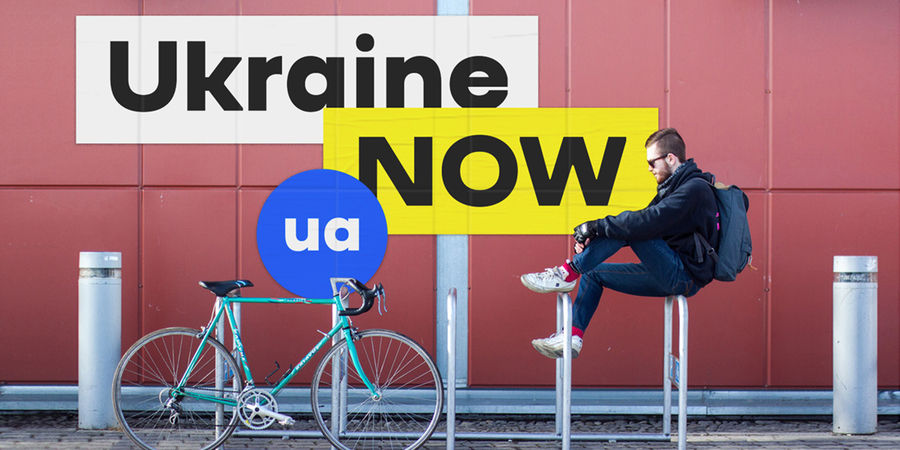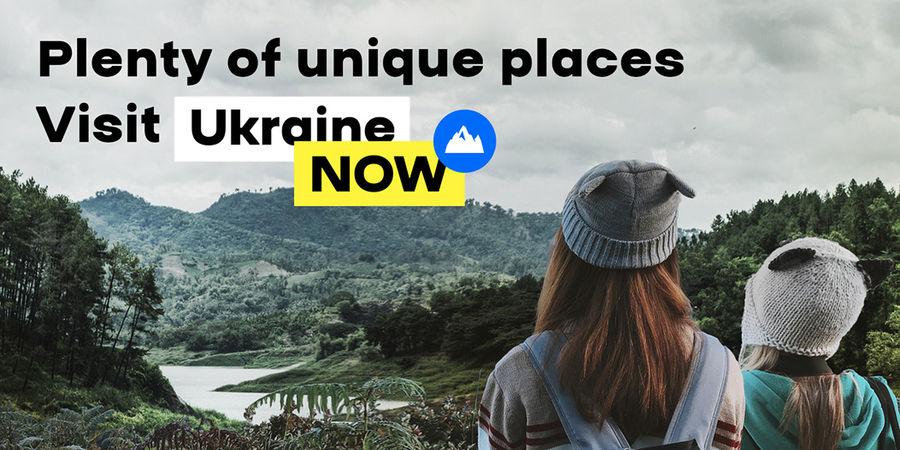
Logo font pair with Mazzard M Regular (1 of 12)About ErmilovErmilov typeface was created specifically for the international brand of Ukraine "Ukraine NOW" – Reddot Design Award 2018 winner. This is a modern massive geometric sans serif in the spirit of constructivism with special skews in the corners of letters. The author decided to devote this font to a famous Kharkiv designer and constructivist artist Vasyl Yermilov. The future use of the font depends on decision to create whole font family with different variants of weight. Now there is only Ermilov Bold. On its basis, you can make headlines or logos, but it is not suitable for body text. The typeface was designed by Kyrylo Tkachov for Banda Agency in 2018.
Features of font family ErmilovThe hit of the decade:
Hit of 1960s Hit of 2010s Similar to fonts from logos, games, movies:
Ukraine NOW
Functions of font family ErmilovTypeface use in layout:
Associations for font family ErmilovTypeface personality and character:
significant, robust, formidable, manly, durable, severe, good quality, splashy, notable, dense, close-fitting, monumental, bright, active, technical, loud, daring, brutal, powerful, accurate, flat, convincing, rectangular, static, monotone, pragmatic, practical, solid, laconic, serious, iron, steel, reliable, self-assured, strong, stable, automatic, artificial, machine, engineering, industrial, technogenic, military, army, heavy, strict, urbanistic, authoritative, important, urban, motivating, business, tough, railway, schematic, reputable, workman, rigid, independent, responsible, west, logical, cold, rude, cutting, crisp, computer, ambitious, mandatory, architectural, lasting
safe, excavator, security, protection, mine, metallurgy, tank, machine tool, building materials, stock, ammunition, depot, miner, blockbuster, thriller, game, action, footwear, brick, Freight, rocket, satellite, port, fitness equipment, repairs, truck, trucker, steel-maker, news, engine, tool, chemistry, mathematics, urban studies, industry, equipment, packing, power station, energy industry, army, weapons, mechanical engineering, factory, scheme, constructor, engineer, automation, car, motor, press, city, science, helmet, uniform, railway carriage, aviation, aircraft, airsoft, construction, building, design, android, robot, space, IT, IT specialist, computer, gadget, electronics, programming, technology, hardware, architecture, railway, fuel, architect, coworking, workman, bank note, coin, Delivery, Lockdown, oil, selfie, police, logistics Typeface associated with age: